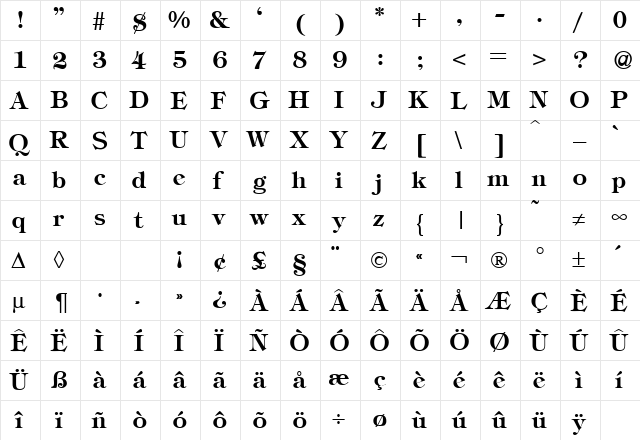
TiffanyTwo Bold
Design Context for TiffanyTwo Typeface
TiffanyTwo takes a measured approach to typography — its balanced proportions and neutral character make it a reliable workhorse for both digital and print work. Its bold stroke weight gives it real presence on the page.